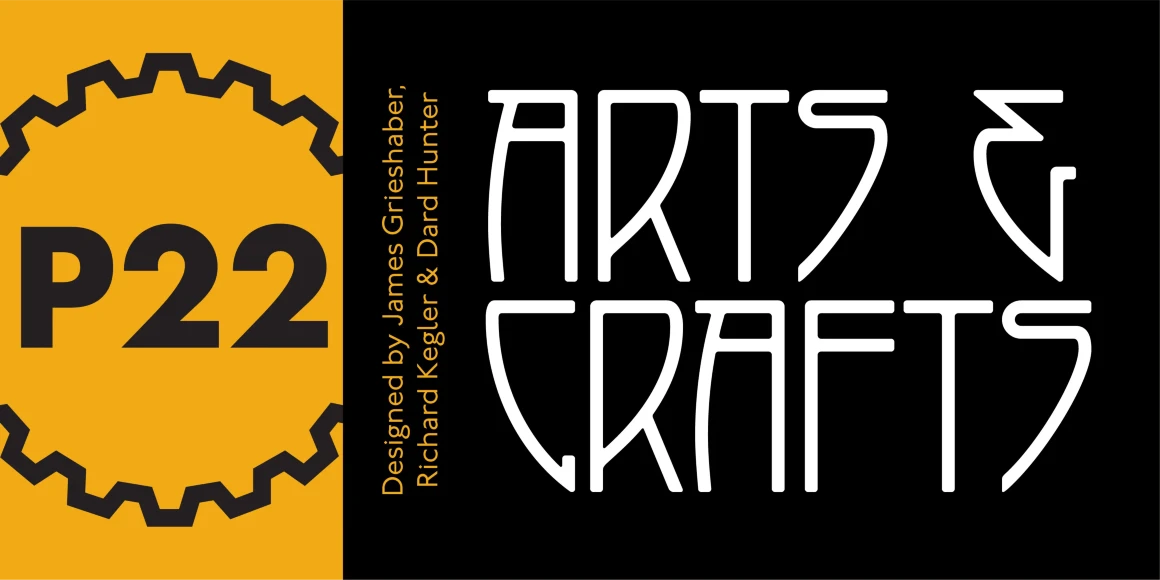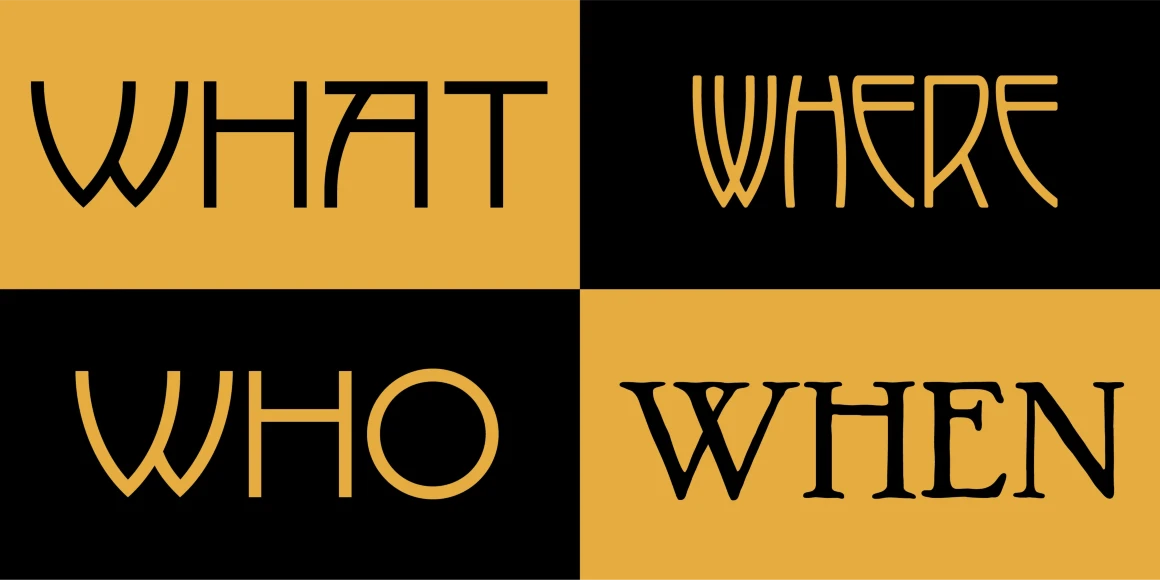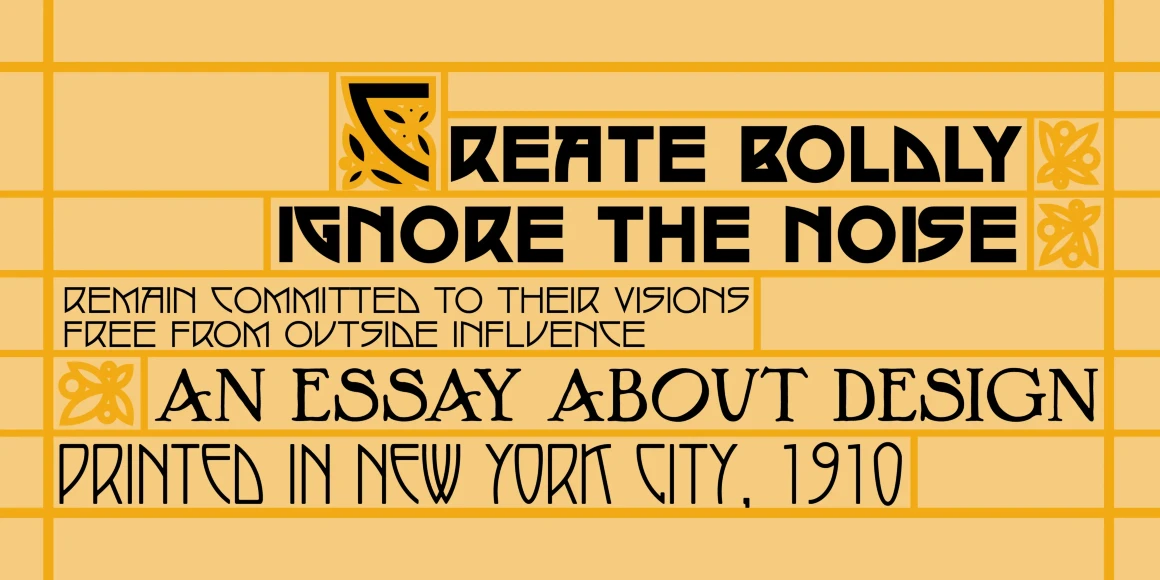
Arts and Crafts
Produced in association with The Burchfield-Penney Art Center (Buffalo, New York), the Arts and Crafts family is derived from Roycroft books and periodicals designed by multi-faceted artist: Dard Hunter between 1900–1910. Dard Hunter was arguably one of the most influential graphic designers to come out of the American Arts and Crafts movement. The main Arts and Crafts alphabet is an all-caps based on Dard Hunter’s famous Viennese style lettering which has become synonymous with the Roycroft movement. It contains 5 weights with various ligatures in all weights. The family also contains two additional Dard Hunter designs, Hunter and Tall, authorized by his grandson, Dard Hunter III. The family is rounded out by 2 decorative ornament fonts to give your documents a unique and distinguished mission-style appearance.
Designed by James Grieshaber, Richard Kegler & Dard Hunter